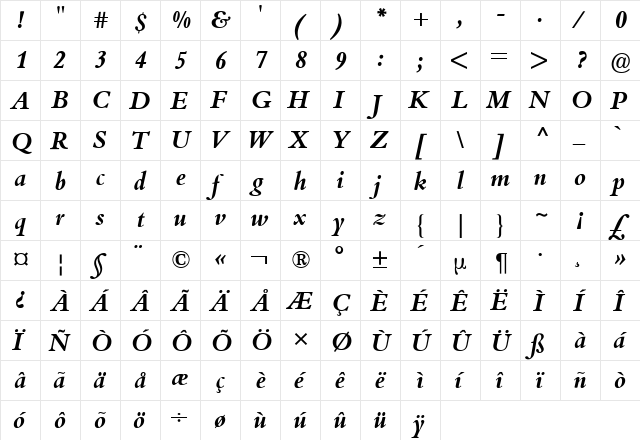
Bembo BQ Italic
Design Context for Bembo BQ Typeface
Bembo BQ is a composed and adaptable typeface that performs quietly and consistently across a wide range of design contexts. Its italic angle brings a sense of urgency and motion to the letterforms.
Pro Tip: Try Bembo BQ for annotation and caption copy alongside an upright companion — the contrast in angle creates a dynamic but ordered typographic system.